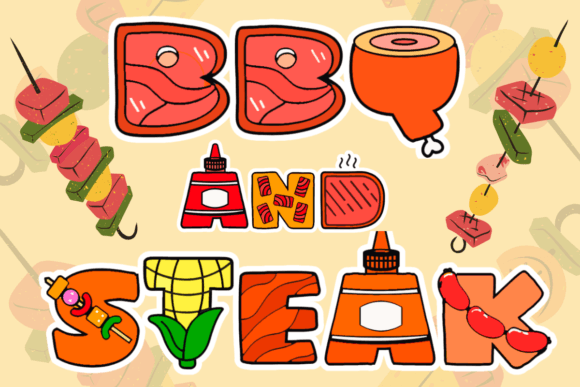
Introducing the BBQ and Steak Font: A Deliciously Unique Decorative Font
Are you looking for a font that adds a touch of mouth-watering excitement to your designs? Look no further than the BBQ and Steak Font! This decorative font features letters shaped like delicious BBQ and steak, perfect for menus, food posters, and BBQ party invitations. In this article, we’ll dive into the details of this tasty font and explore how it can elevate your designs.
A Font that’s Off the Grill
The BBQ and Steak Font is a one-of-a-kind decorative font that features letters designed to look like they’re made from juicy, grilled meat. Each letter is carefully crafted to resemble a perfectly grilled steak or a rack of ribs, making it a perfect fit for any food-related design project. The font is bold, eye-catching, and sure to make your designs stand out.
BBQ and Steak Font Example
Perfect for Foodies and BBQ Enthusiasts
Whether you’re a food blogger, a restaurant owner, or simply a BBQ enthusiast, the BBQ and Steak Font is a great addition to your design toolkit. The font is perfect for creating mouth-watering menus, posters, and invitations that will make your audience’s taste buds tingle. Imagine using this font to create a menu for your BBQ restaurant or a poster for your next backyard BBQ party. The possibilities are endless!
Key Features of the BBQ and Steak Font
• Unique letter designs: Each letter is shaped like delicious BBQ and steak, making it a one-of-a-kind font.
• Bold and eye-catching: The font is bold and mouth-watering, perfect for grabbing attention.
• Perfect for food-related designs: Menus, posters, invitations, and more – the BBQ and Steak Font is perfect for any food-related project.
Tips for Using the BBQ and Steak Font
Here are a few tips for getting the most out of the BBQ and Steak Font:
• Use it sparingly: While the font is bold and eye-catching, it can be overwhelming if overused. Use it sparingly to add emphasis to key words or phrases.
• Pair it with complementary fonts: Pair the BBQ and Steak Font with complementary fonts to create visual interest and add depth to your designs.
• Experiment with colors: Don’t be afraid to experiment with different colors to find the perfect combination for your design.
The BBQ and Steak Font is a unique and deliciously fun font that’s perfect for foodies and BBQ enthusiasts. With its bold and eye-catching letter designs, ease of use, and versatility, it’s a great addition to any design toolkit. Whether you’re creating menus, posters, invitations, or more, the BBQ and Steak Font is sure to add a touch of mouth-watering excitement to your designs.